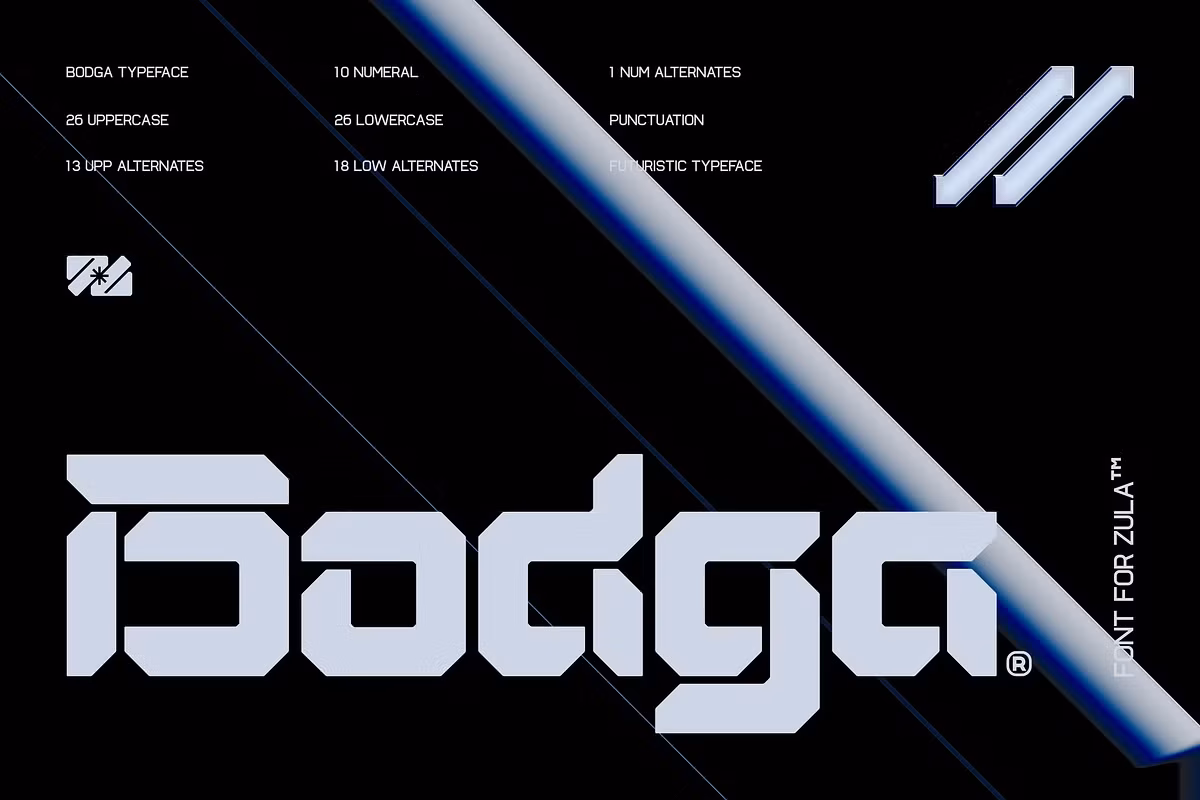
BODGA TYPEFACE Free Download
BODGA TYPEFACE Free Download is a bold, modern typeface designed with clean lines and geometric shapes. Its strong, minimalistic design makes it perfect for creating impactful headlines, branding, logos, posters, and digital content. Whether you're working on a contemporary brand identity or designing sleek promotional materials, BODGA offers both versatility and style with its sharp, clear letterforms.
Using the BODGA TYPEFACE Free Download adds strength and sophistication to your typography. Its bold and professional appearance makes it ideal for projects that require attention-grabbing and high-contrast text.